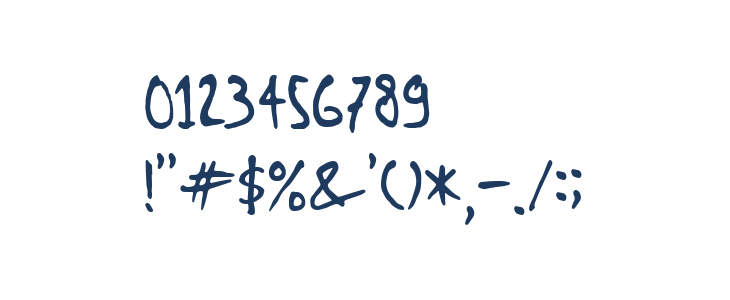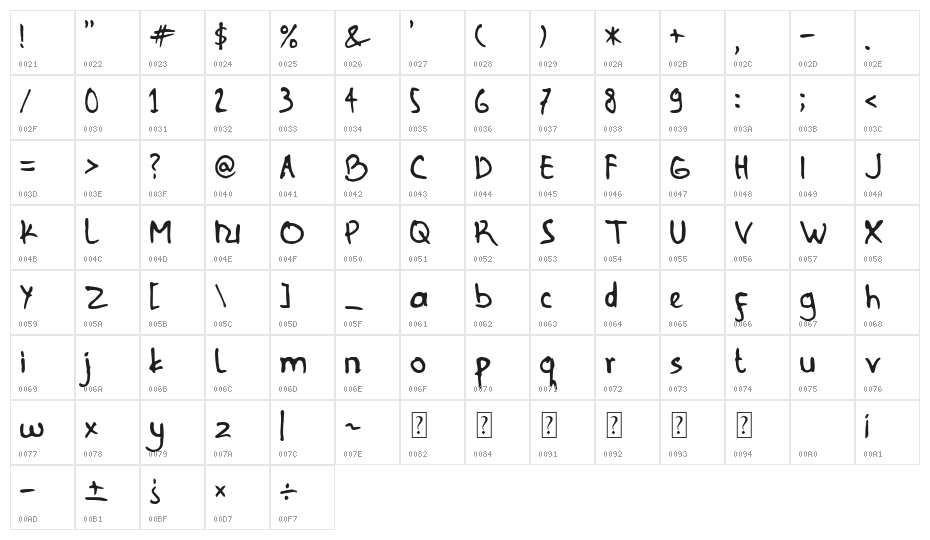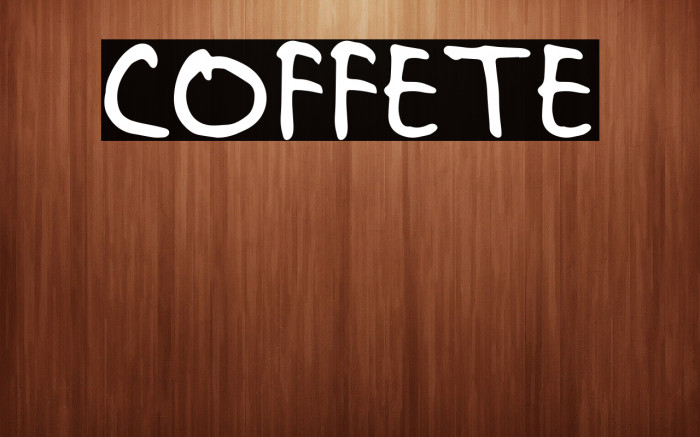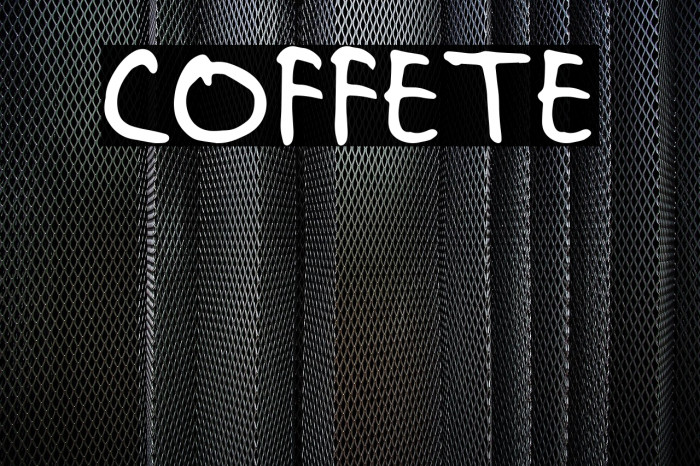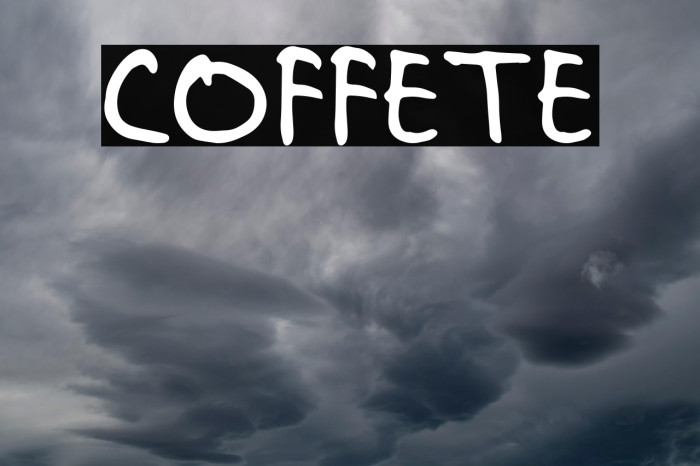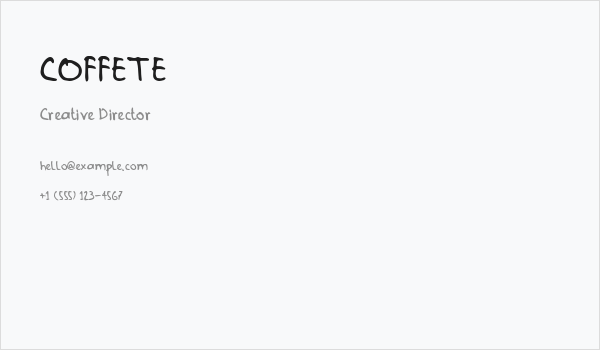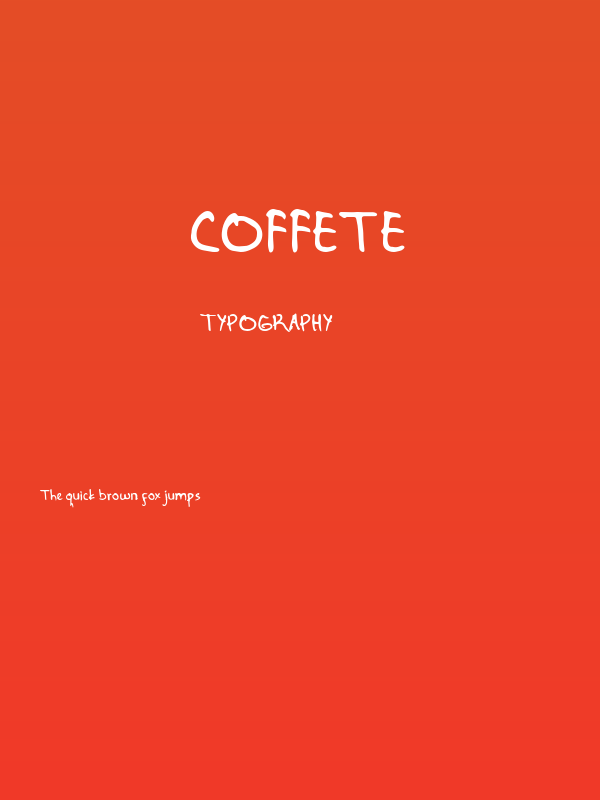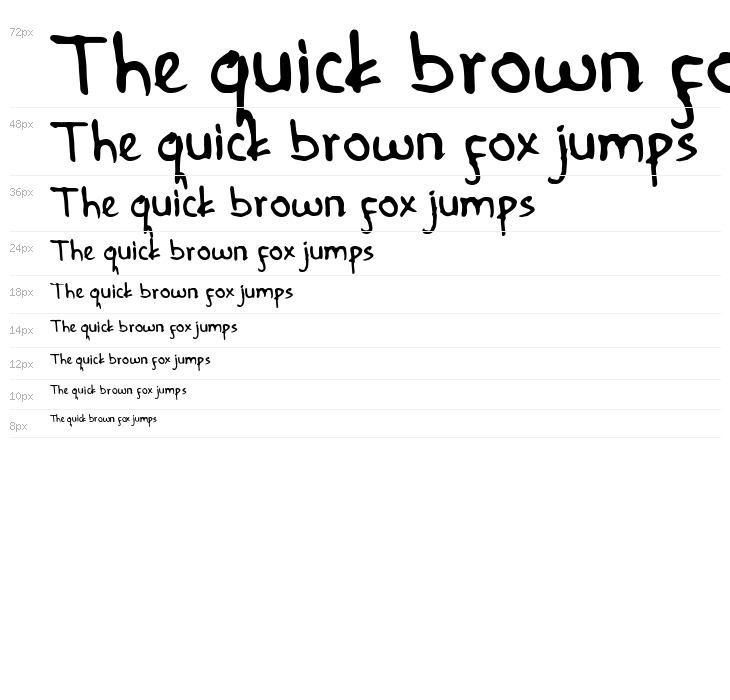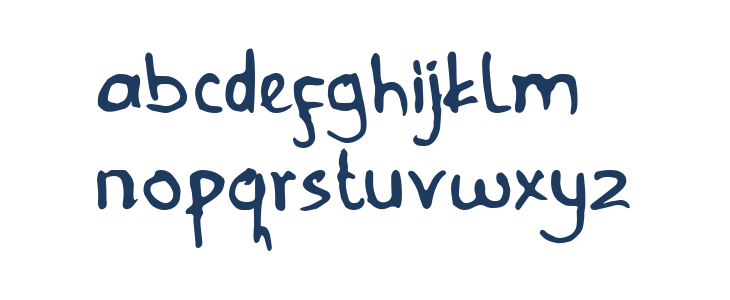
COFFETE Font
COFFETE Description
This font features a playful and casual handwritten style, characterized by its uneven strokes and slightly irregular letterforms. The uppercase and lowercase letters maintain a consistent flow, giving it a friendly and approachable appearance. The numbers and special characters follow the same informal style, making it versatile for various creative projects. The strokes are bold, with a medium contrast that adds to its dynamic look. This font is perfect for projects that require a personal touch, such as invitations, greeting cards, or informal branding.
| Proposed Projects | Ideal for invitations, greeting cards, informal branding, and creative projects. |